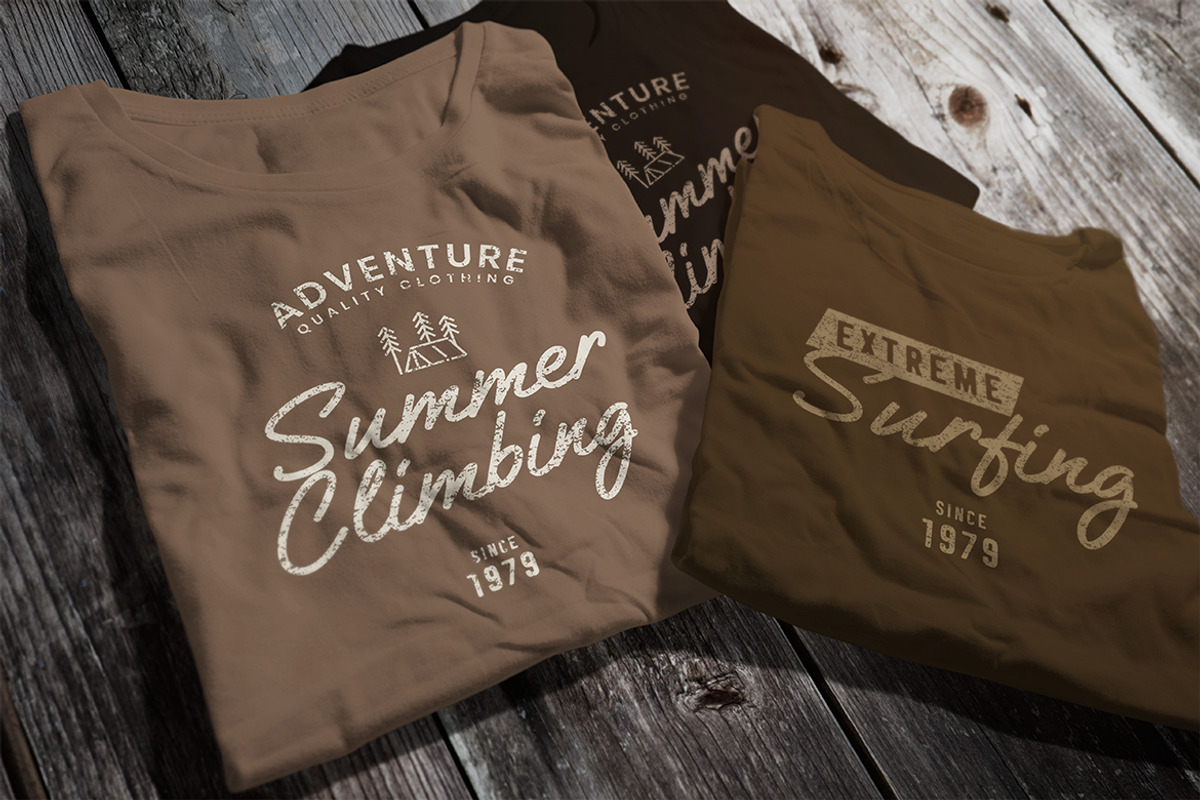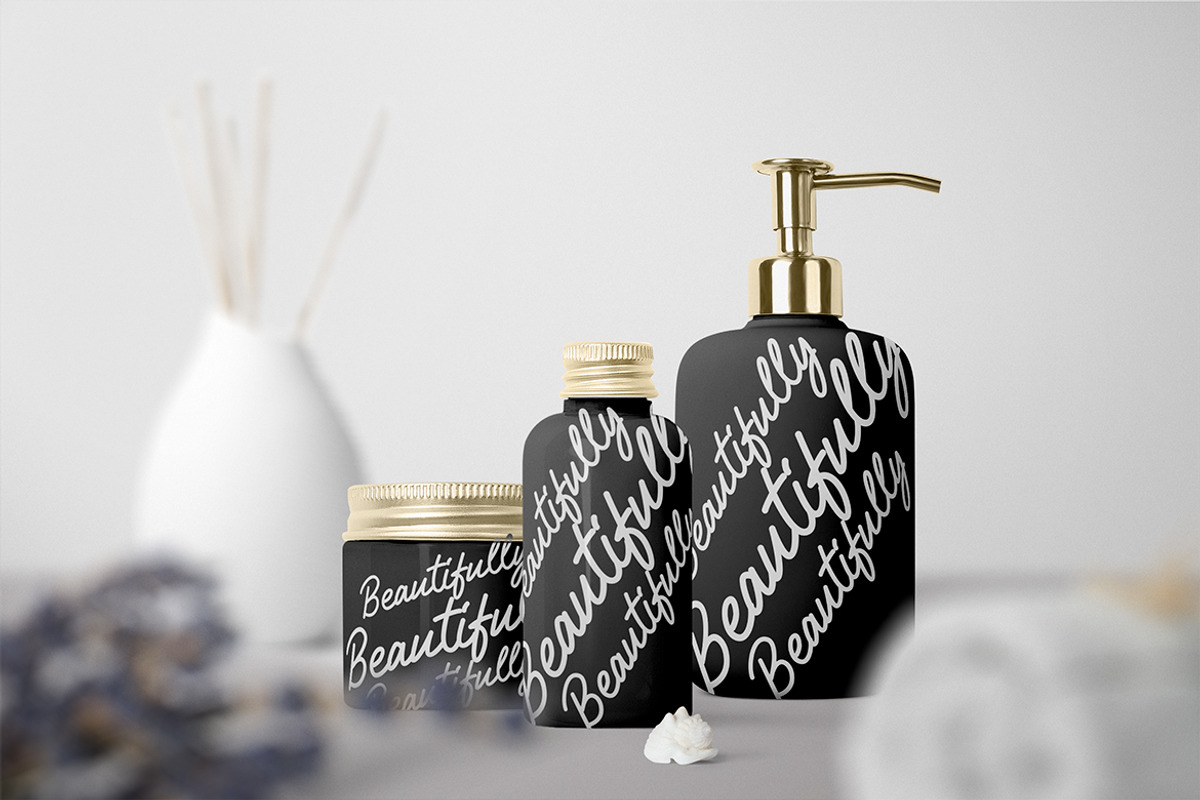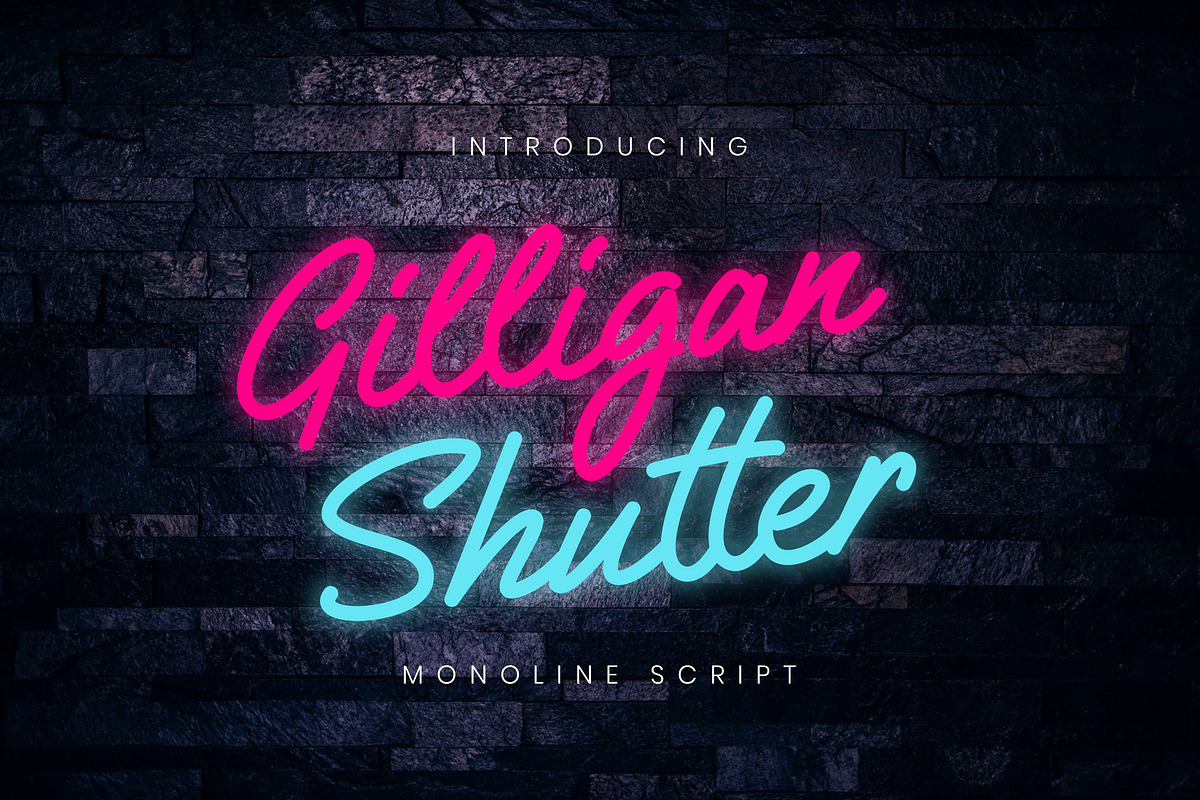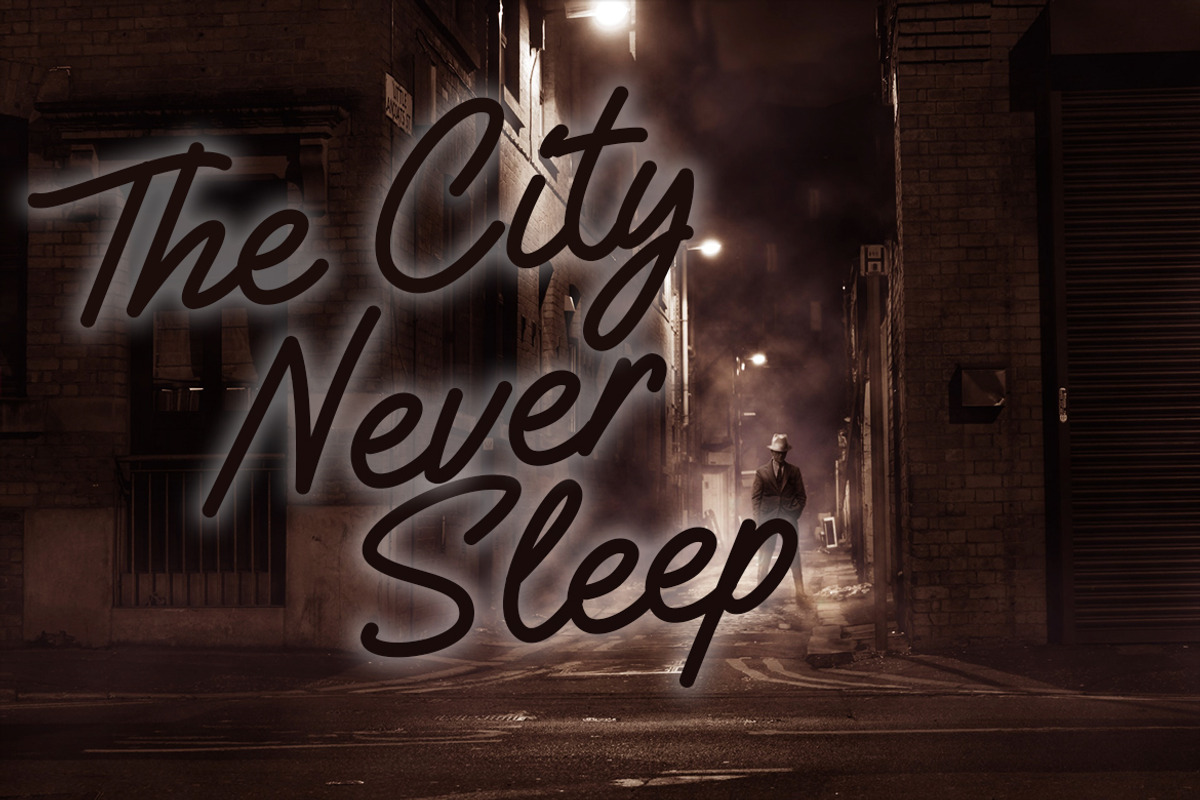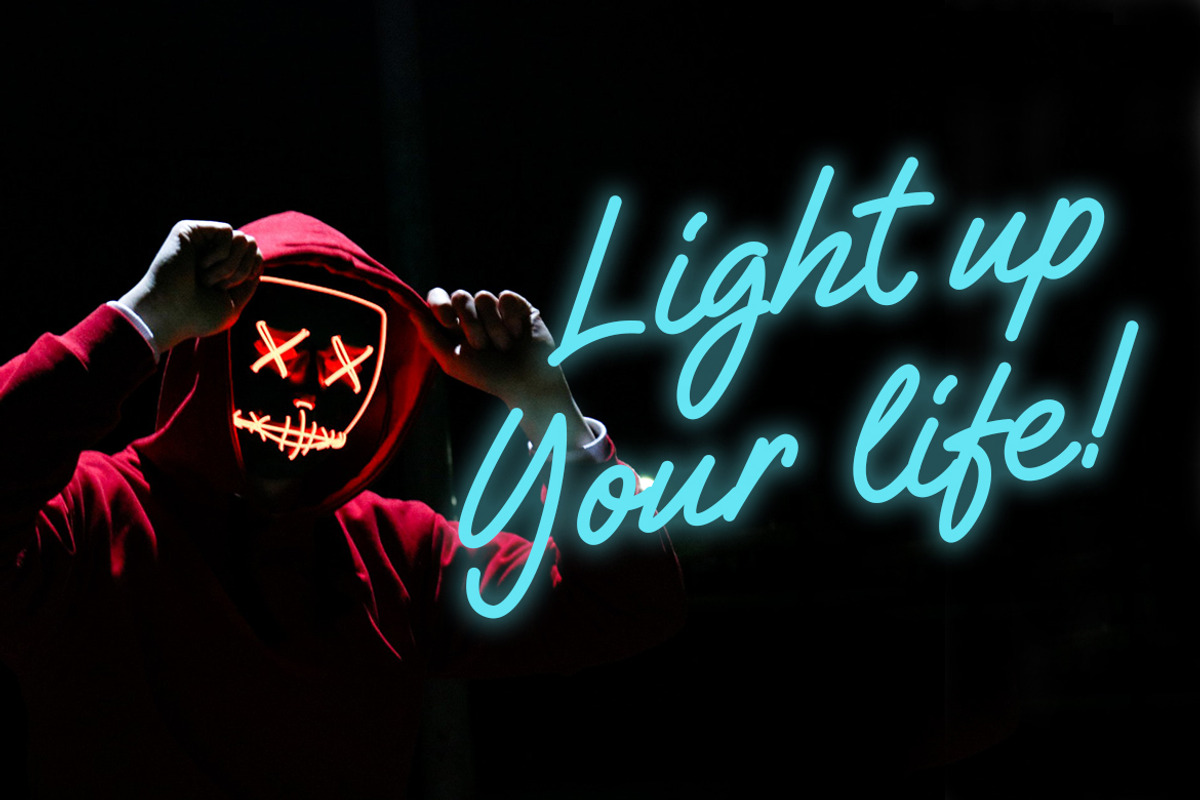
Gilligan Shutter Business Font
Gilligan Shutter Monoline is a sophisticated signature monoline bold collection that give natural lettering for your latest project.
Gilligan Shutter Monoline is perfect for branding projects, logo, wedding designs, social media posts, advertisements, product packaging, product designs, label, photography, watermark, invitation, stationery and any projects that need handwriting taste.
- Fonts include multilingual support for; ä ö ü Ä Ö Ü ß ¿ ¡
Gilligan Shutter Business Font by Creatype Studio fits naturally into Branding, posters, packaging, typography.